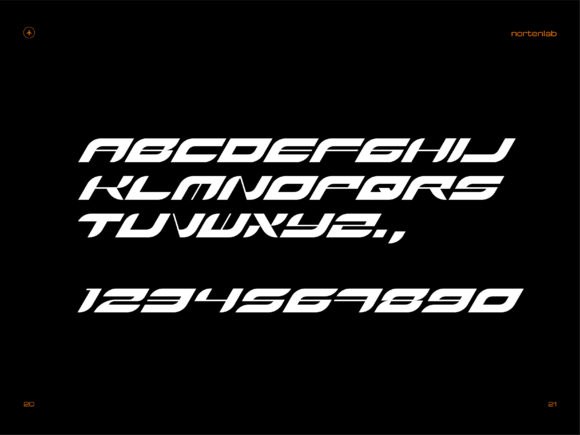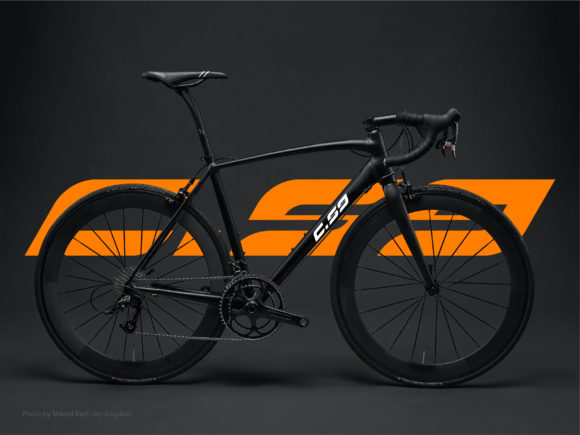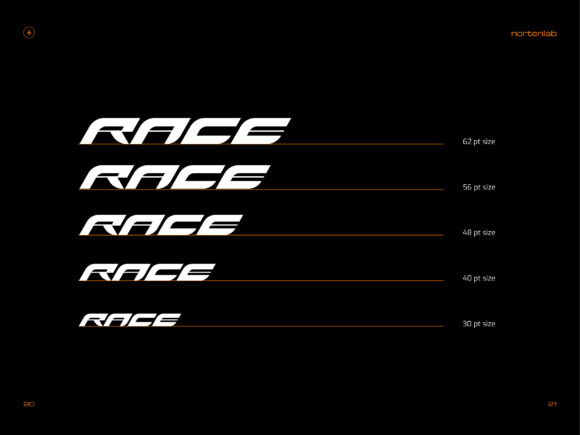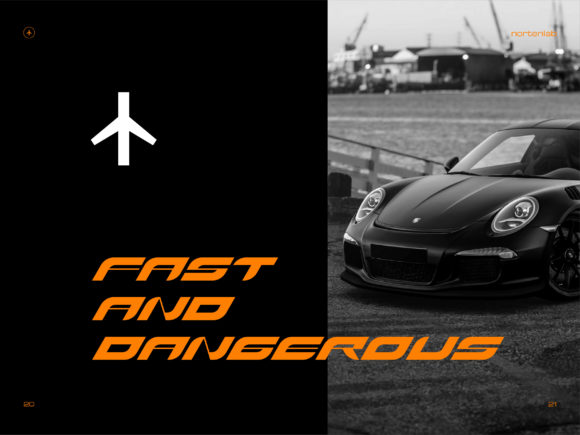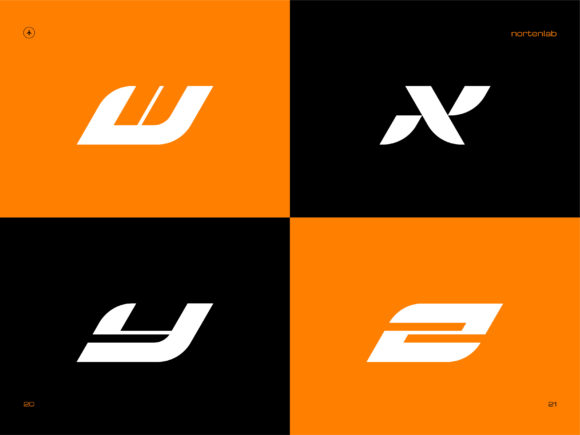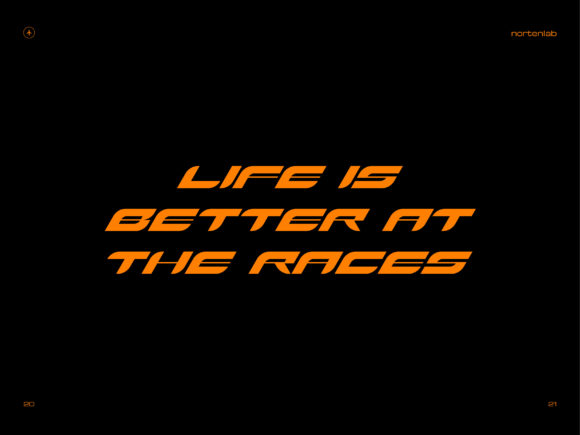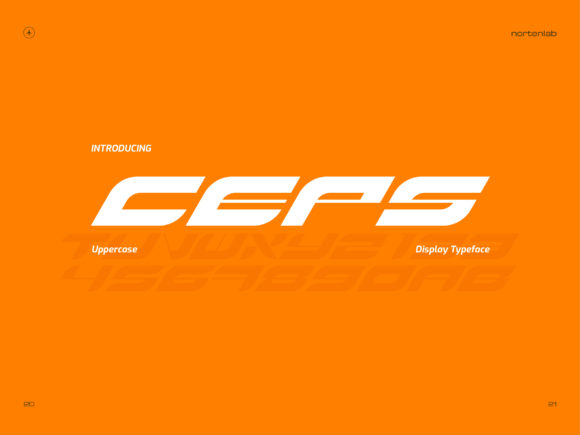
Ceps Font: The Ultimate Modern Display Font for Designers
In the world of typography, fonts play a crucial role in conveying the tone and personality of a design. For designers and crafters looking for a bold and modern-styled display font, Ceps Font is an excellent choice. This cool font is ideal for web designs, business cards, or pretty much anything else that requires a futuristic touch.
What is Ceps Font?
Ceps Font is a modern display font designed to make a statement. Its bold and sleek lines give it a futuristic look that’s perfect for designs that require a touch of sophistication. The font is versatile and can be used for a wide range of design projects, from branding and advertising to web design and crafting.
Key Features of Ceps Font
- Bold and Modern Design: Ceps Font features bold and modern lines that give it a sleek and futuristic look.
- Versatile: This font is perfect for a wide range of design projects, from web design and branding to crafting and DIY projects.
- Easily Readable: Despite its bold design, Ceps Font is easily readable, making it perfect for headlines and titles.
- High-Quality: Ceps Font is a high-quality font that’s designed to deliver exceptional results.
Why Choose Ceps Font?
There are many reasons why designers and crafters choose Ceps Font for their projects. Here are a few:
- Unique Design: Ceps Font has a unique design that’s sure to make your project stand out.
- Flexibility: This font is versatile and can be used for a wide range of design projects.
Design Ideas Using Ceps Font
Ceps Font is a versatile font that can be used for a wide range of design projects. Here are some design ideas to get you started:
- Web Design: Use Ceps Font as a headline font for your website or blog.
- Business Cards: Add a touch of sophistication to your business cards with Ceps Font.
- Branding: Use Ceps Font as a logo font or for branding materials such as brochures and flyers.
- Crafting: Use Ceps Font for crafting projects such as signs, banners, and DIY decorations.
Here are some tips and tricks for using Ceps Font:
- Use it Sparingly: Use Ceps Font sparingly to make a bigger impact.
- Pair it with Other Fonts: Pair Ceps Font with other fonts to create a unique and interesting design.
Ceps Font is a modern and bold display font that’s perfect for designers and crafters looking for a futuristic touch. Its versatility, readability, and high-quality design make it an excellent choice for a wide range of design projects. Whether you’re designing a website, business card, or crafting project, Ceps Font is sure to make a statement.